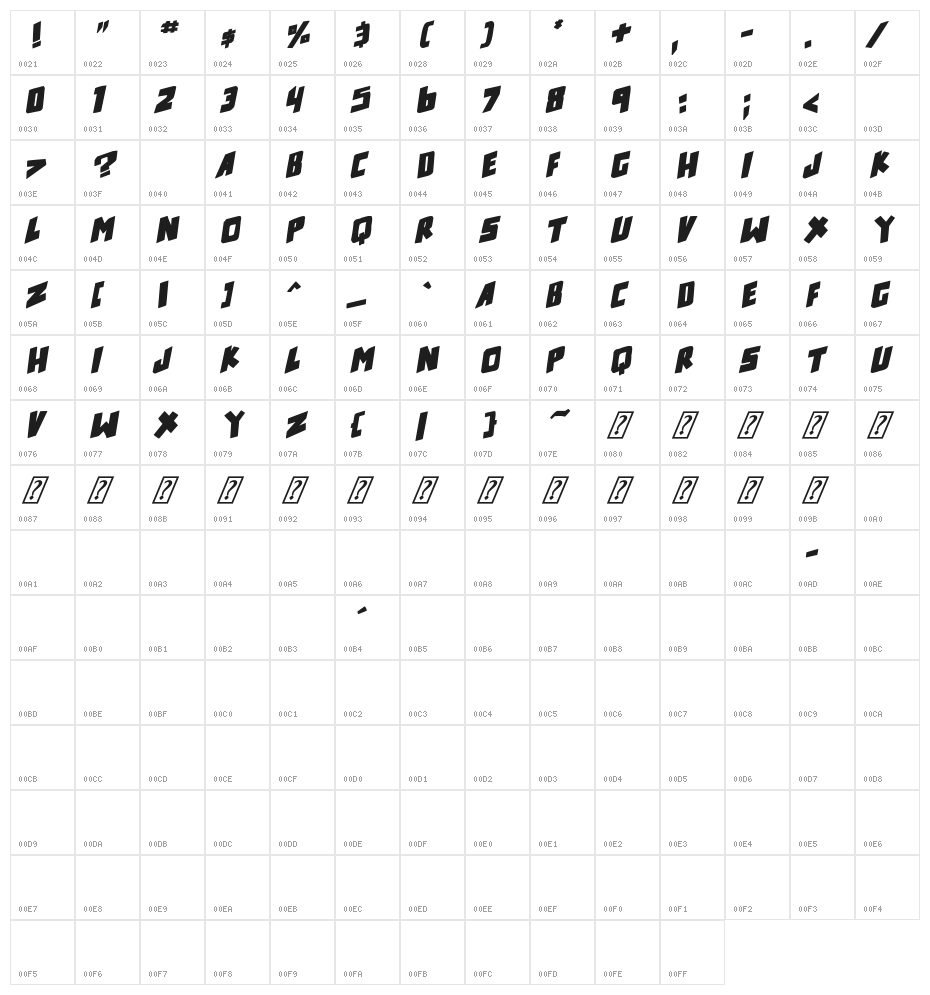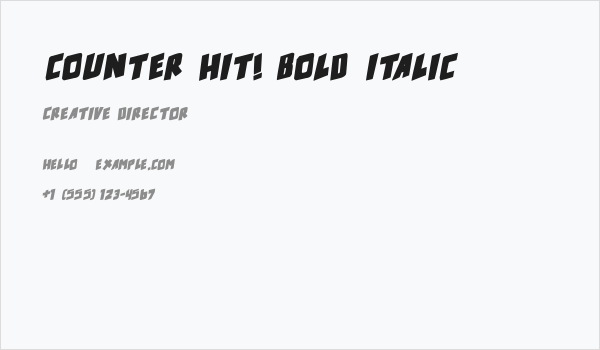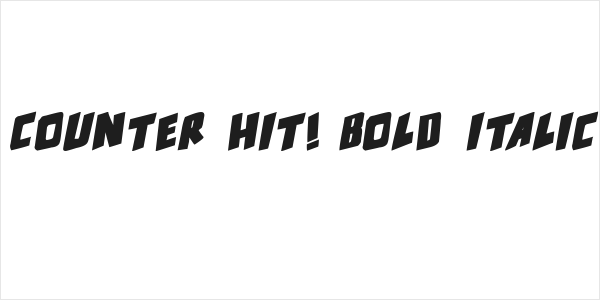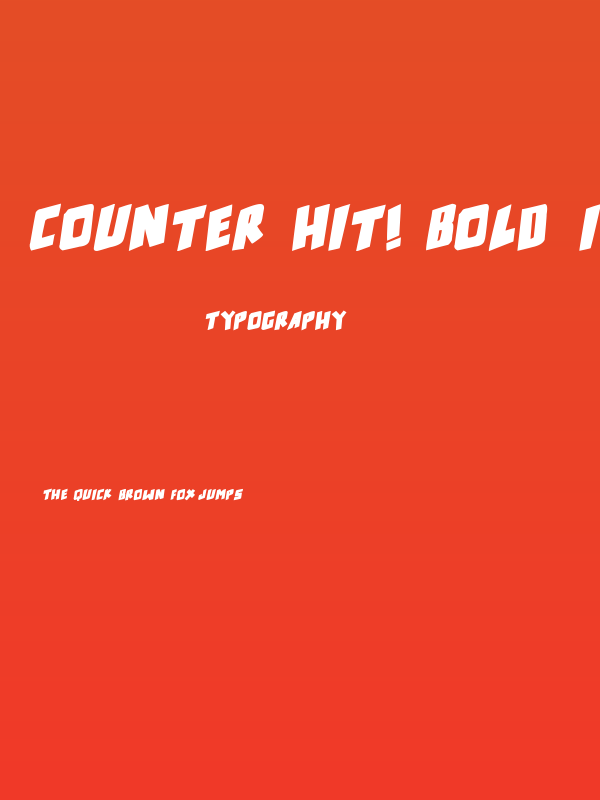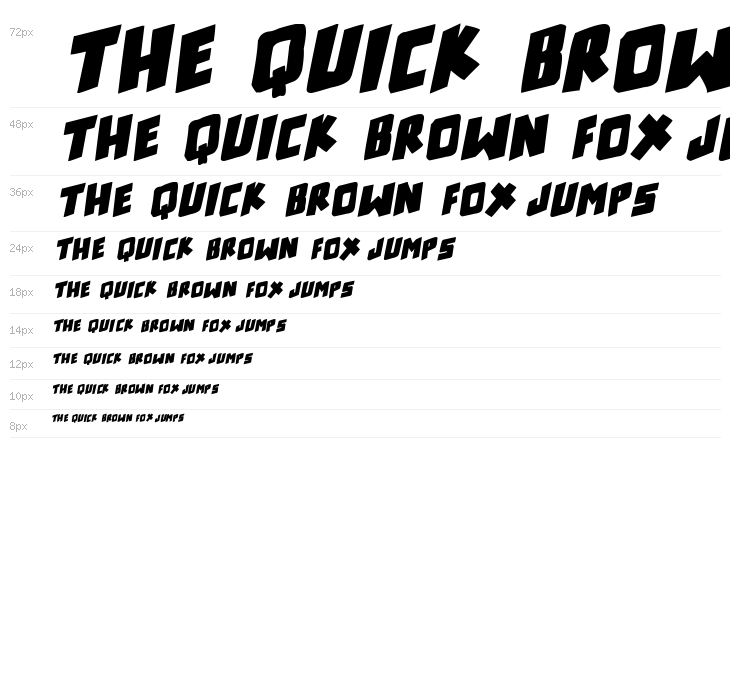
counter hit! Bold Italic Font
counter hit! Bold Italic Description
This font features a bold and italicized style with a strong, impactful presence. The characters are sharply angled, giving a sense of movement and energy. The uppercase and lowercase letters maintain a consistent slant, enhancing the dynamic appearance. Numbers and special characters follow the same bold, italicized design, ensuring uniformity across all glyphs. The font's thick strokes and angular forms make it stand out, ideal for attention-grabbing designs.
Proposed ProjectsPerfect for sports branding, action-themed posters, dynamic logos, and any project needing a bold, energetic typeface.